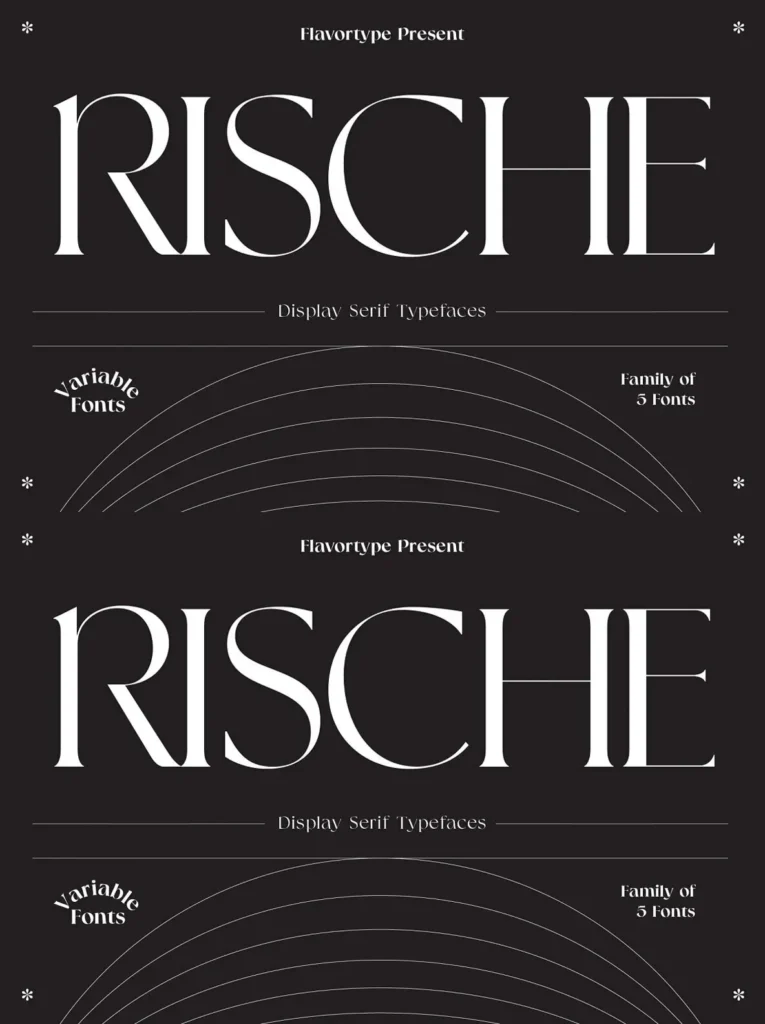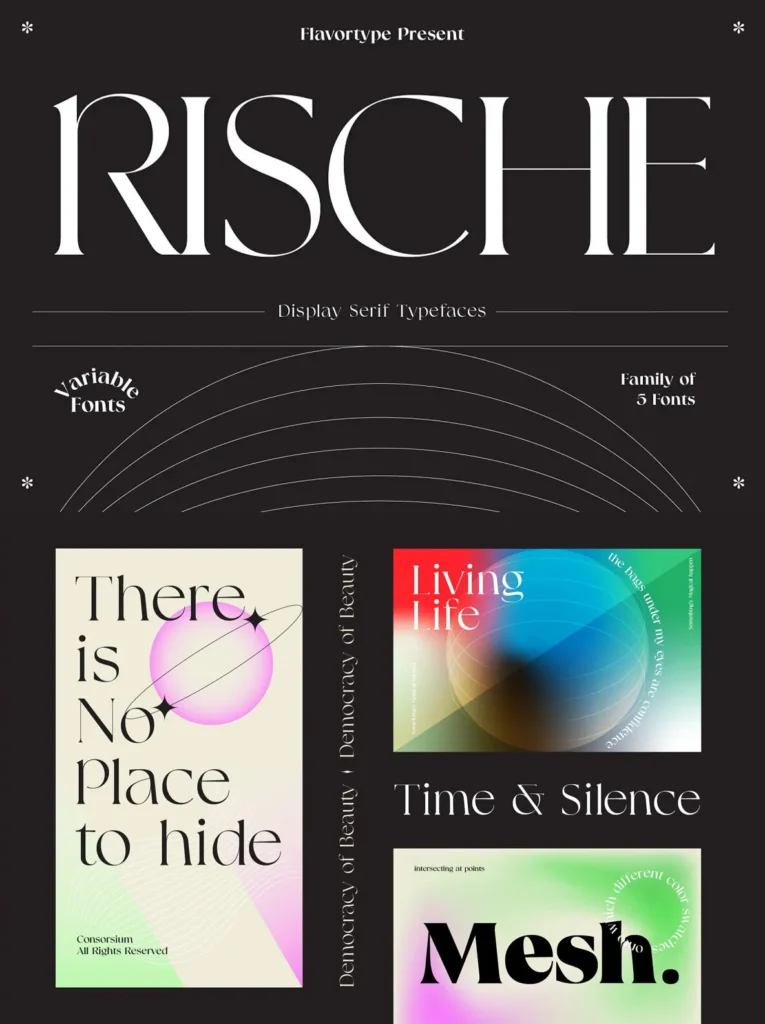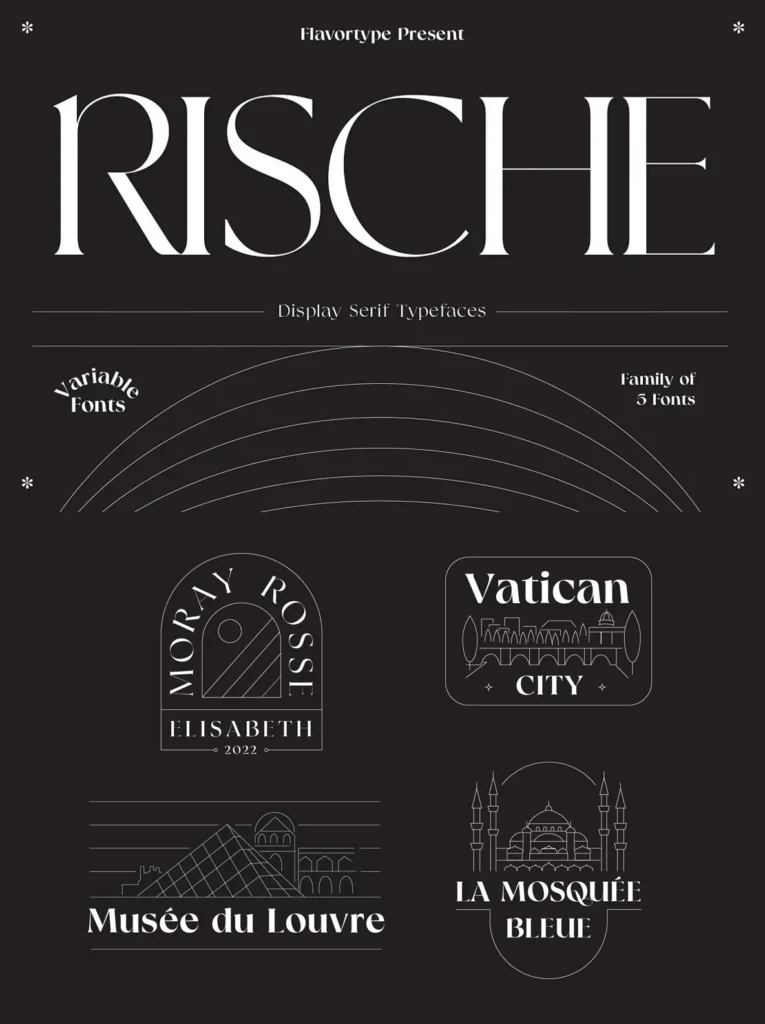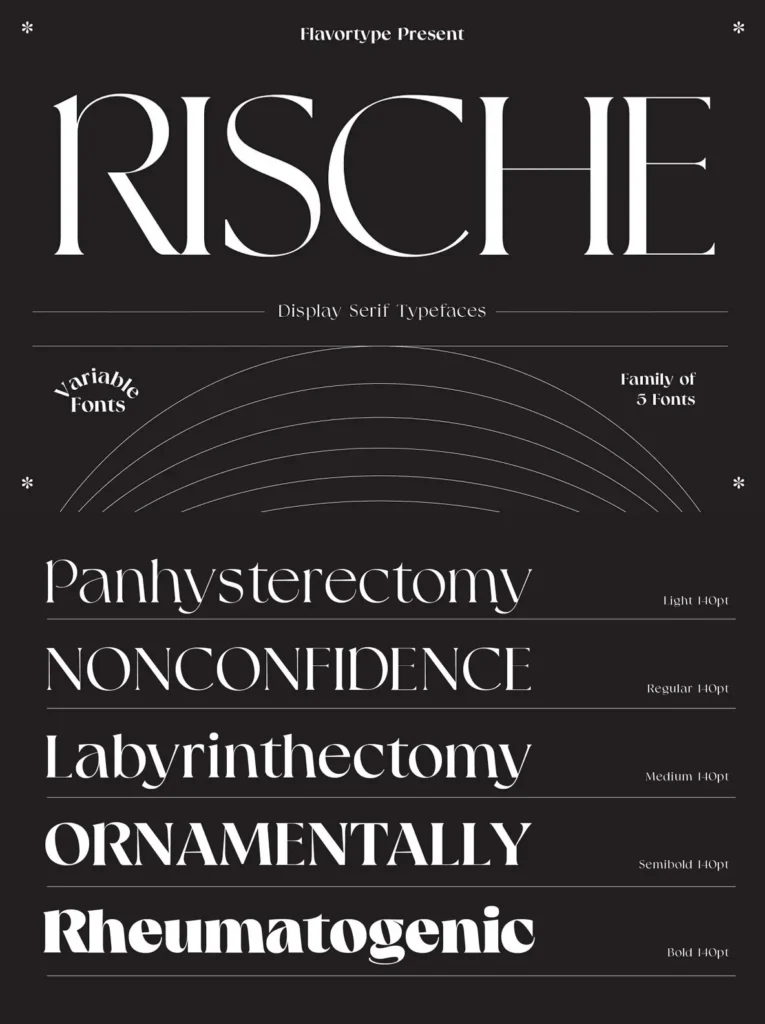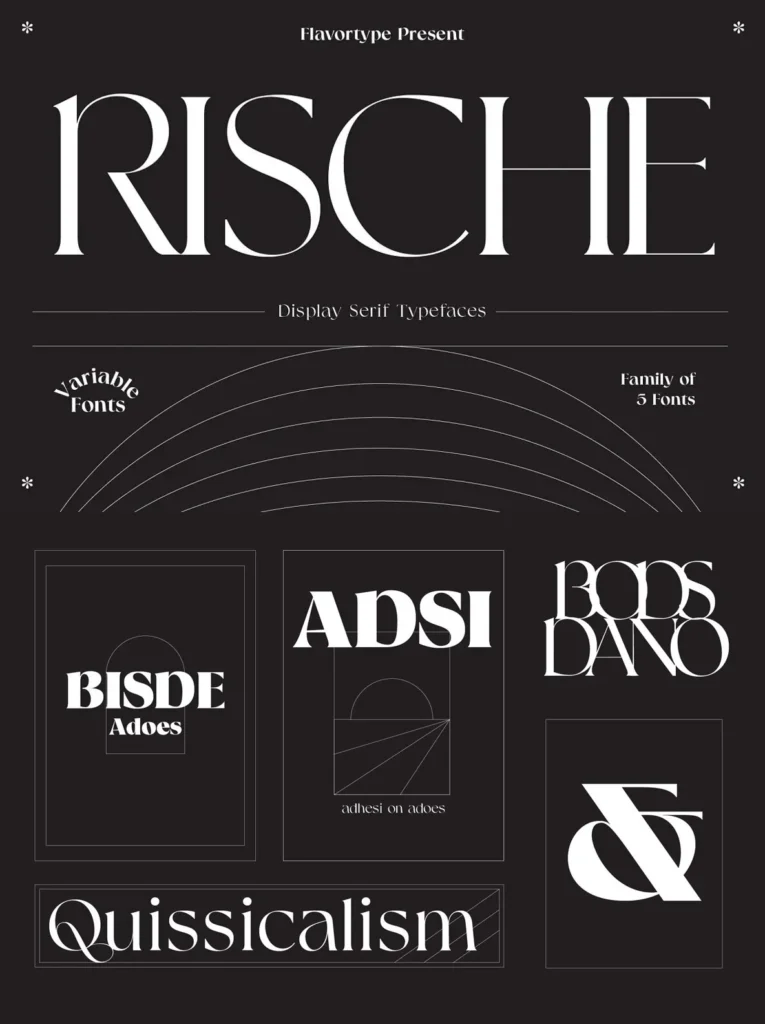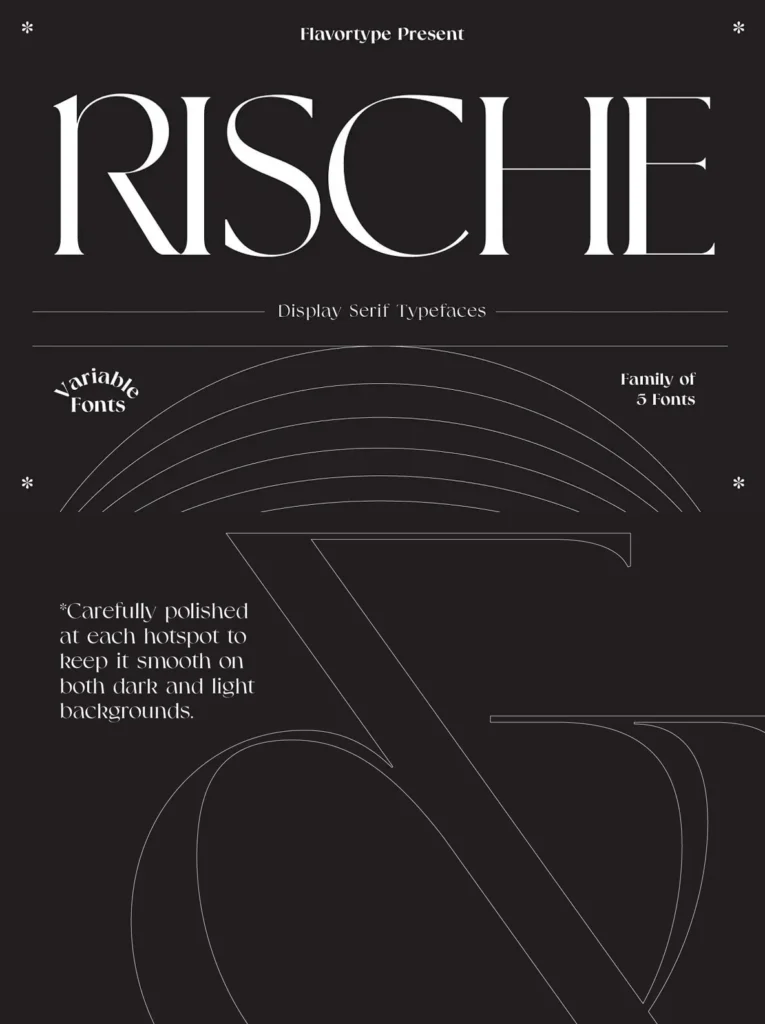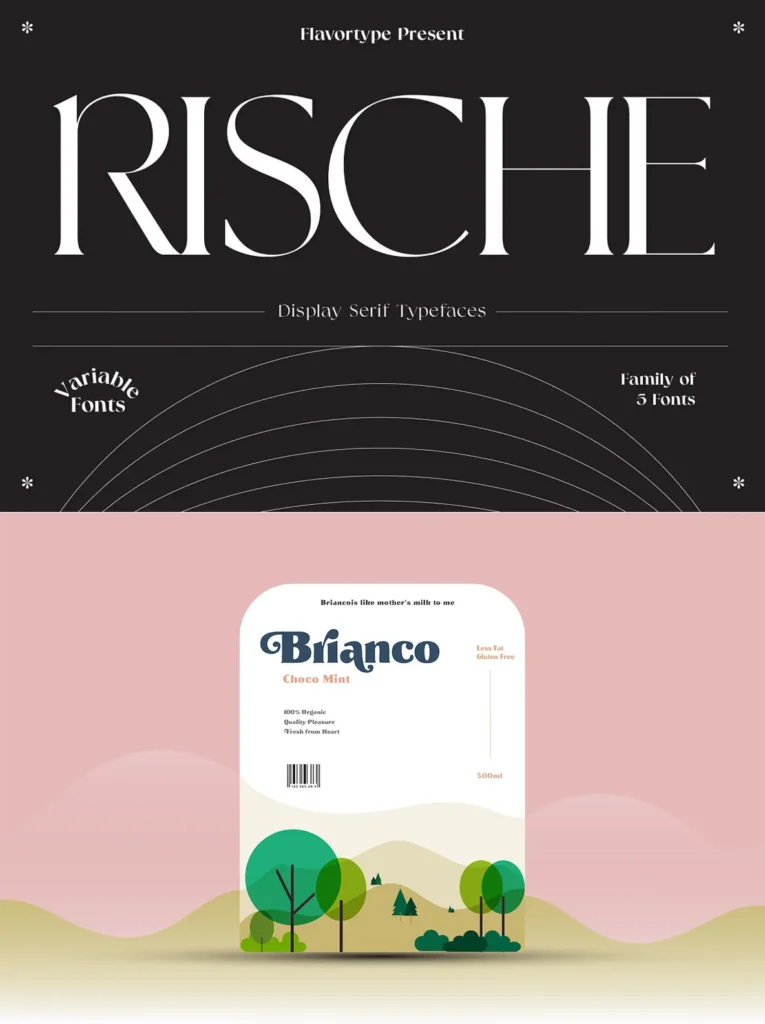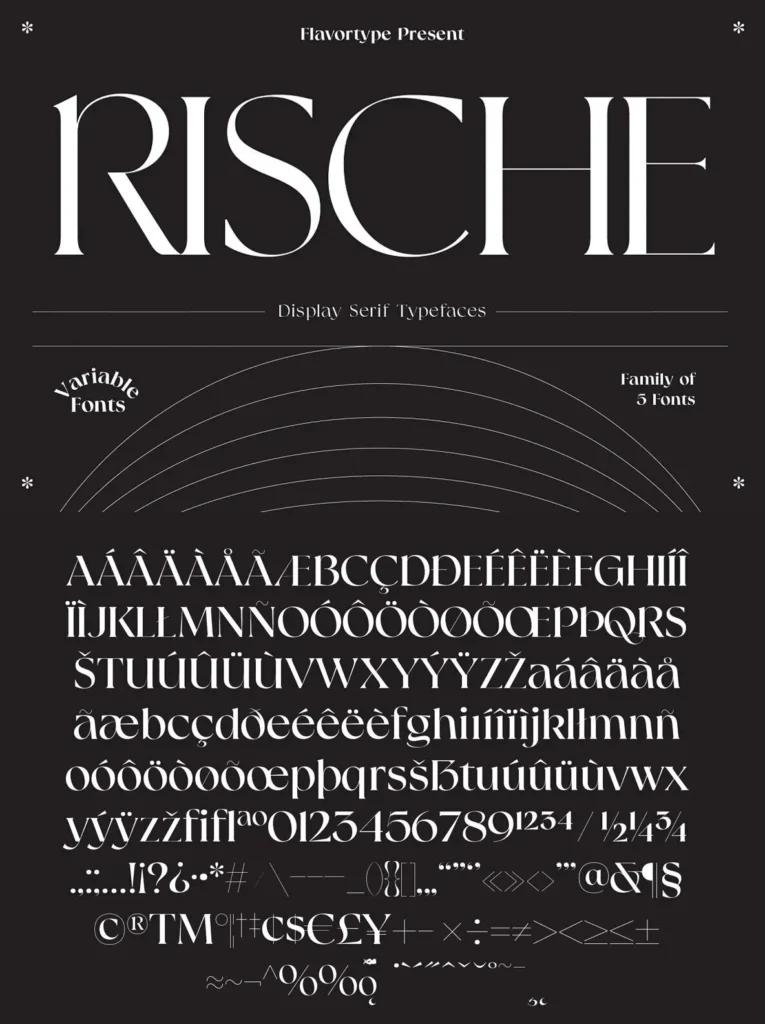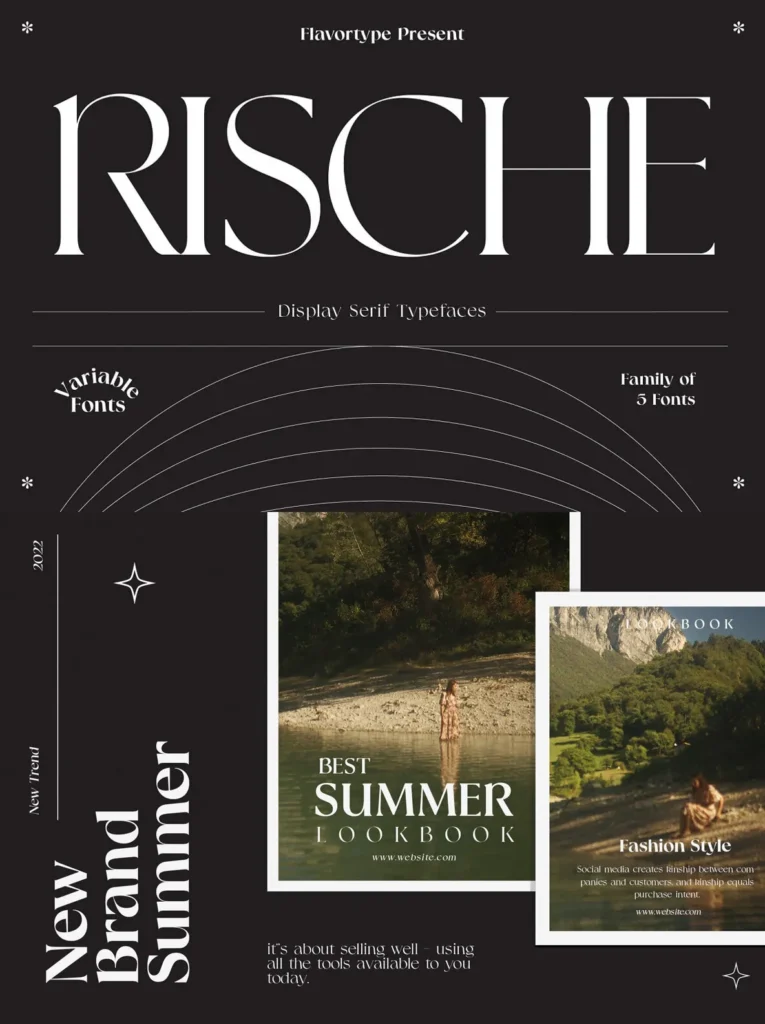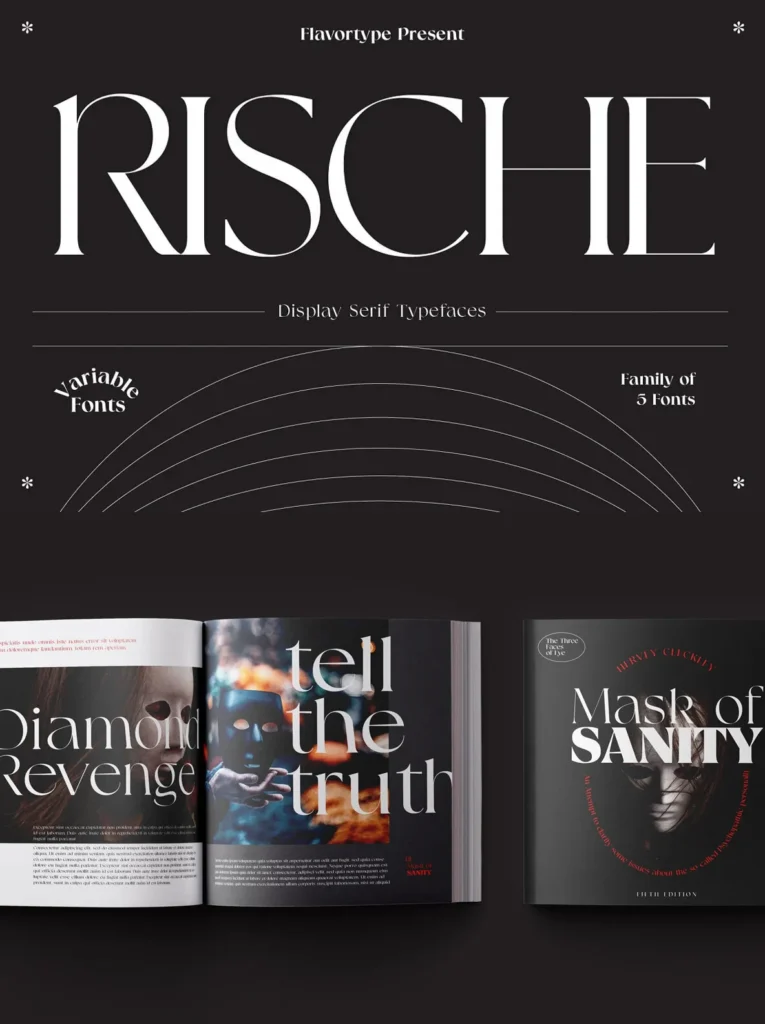
Rische: Endless Possibilities With Variable Display Serif
Rische invites you to embrace the spirit of summer and creative exploration with its bold yet versatile family of display serif fonts. This collection, crafted across five distinct weights—from Light to Bold—provides an adaptable typeface option that effortlessly integrates into any design project. The Rische font family emboldens your creative voice while maintaining seamless design consistency, regardless of the weight pairing or mixing of font styles.
Expanding on its offerings, Rische also features Variable Fonts capability, ranging from weights of 100 to 700. This flexibility opens up a realm of design potential and fine-tuning, designed to perfectly match the nuances of your project needs.
Features:
Rische Light
Rische Regular
Rische Medium
Rische SemiBold
Rische Bold
Rische Variable